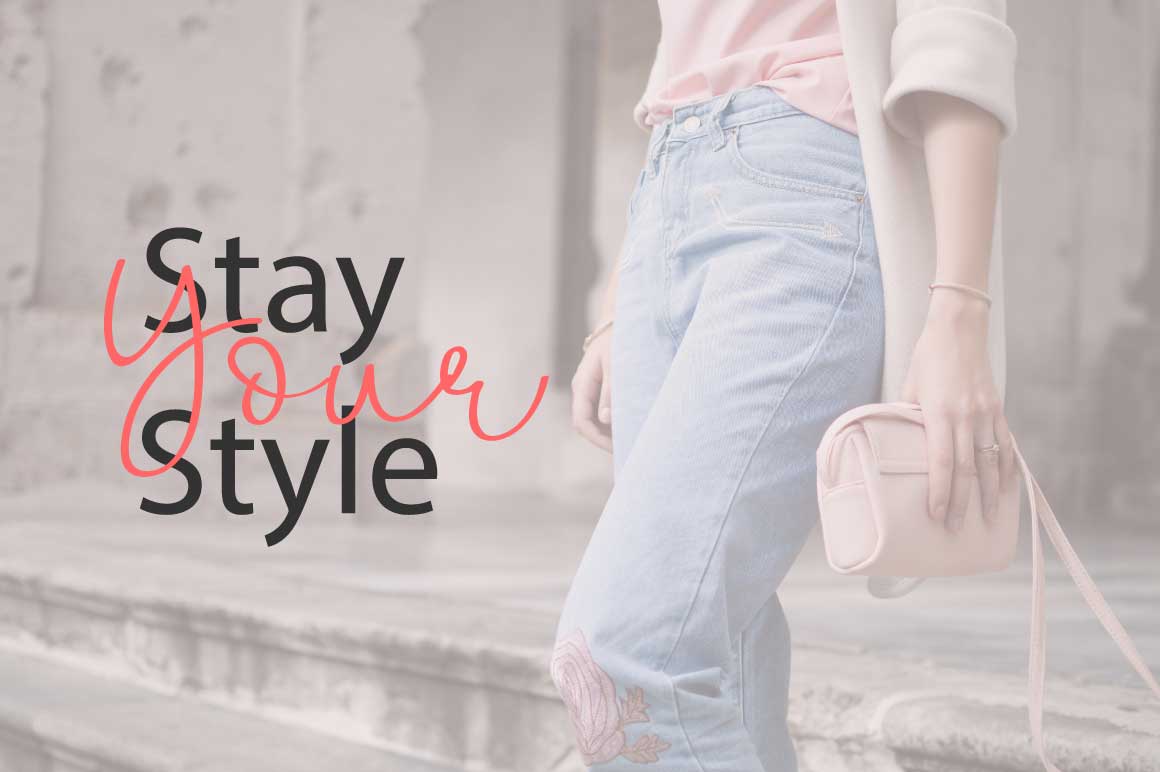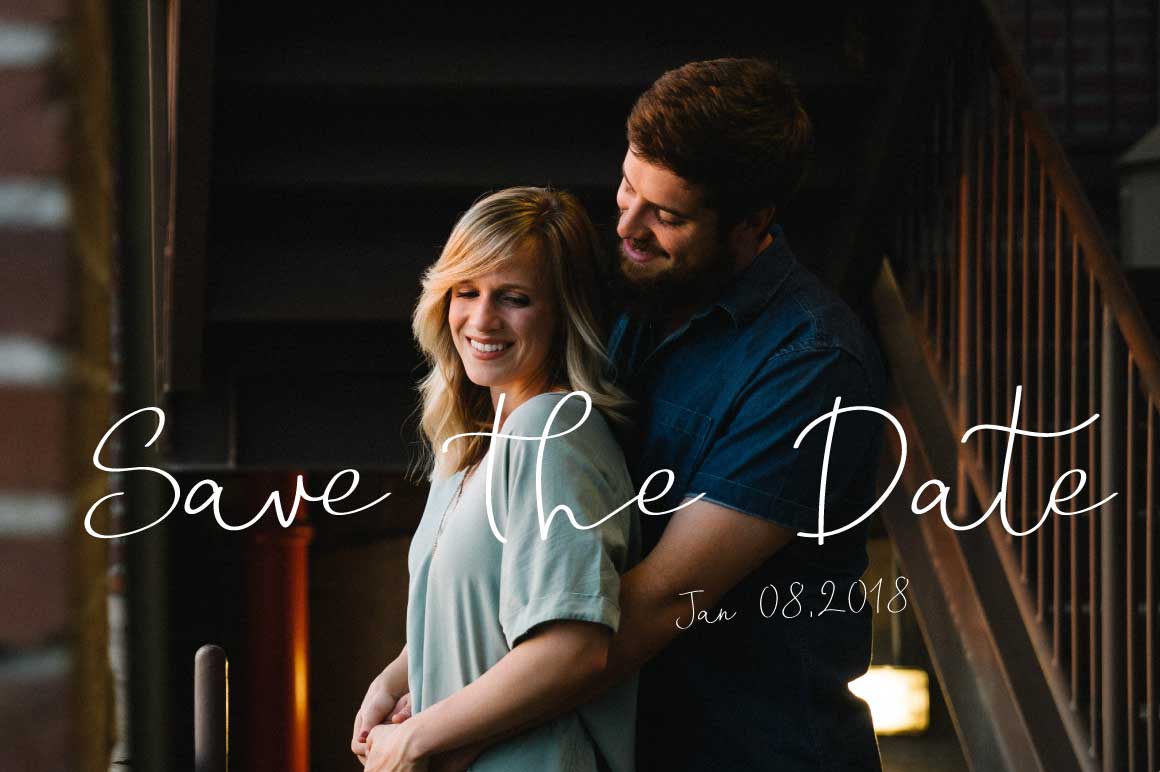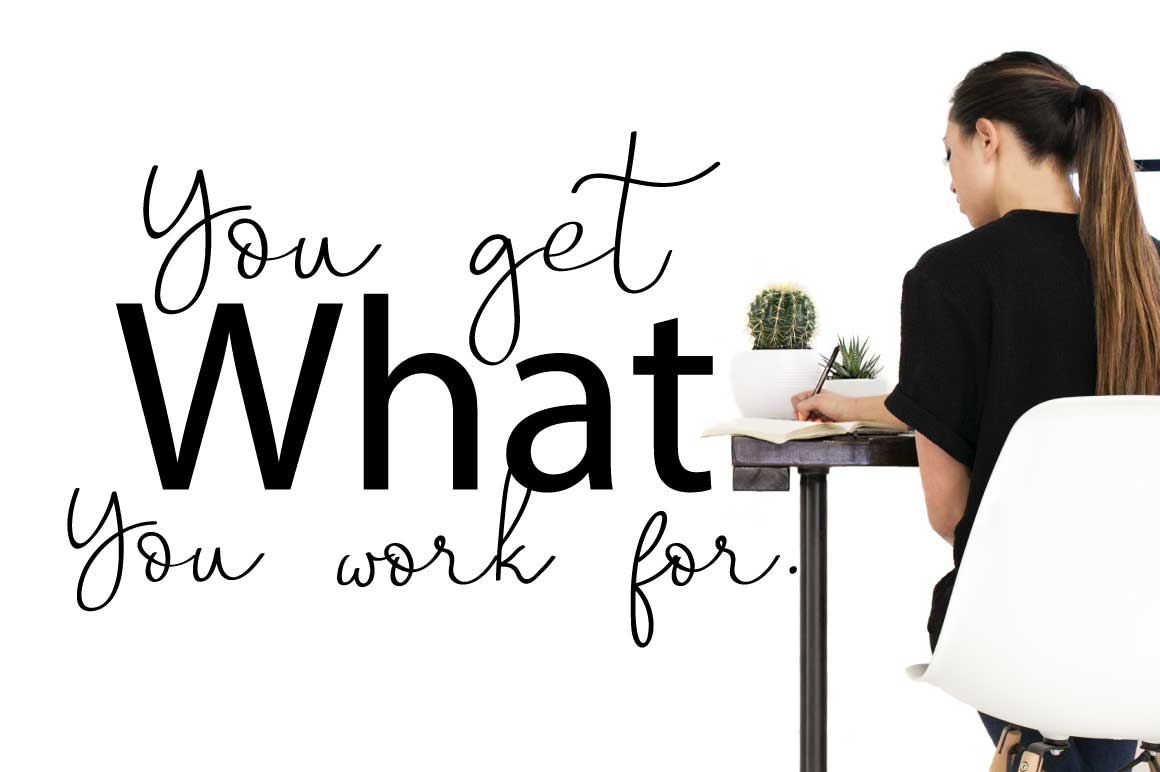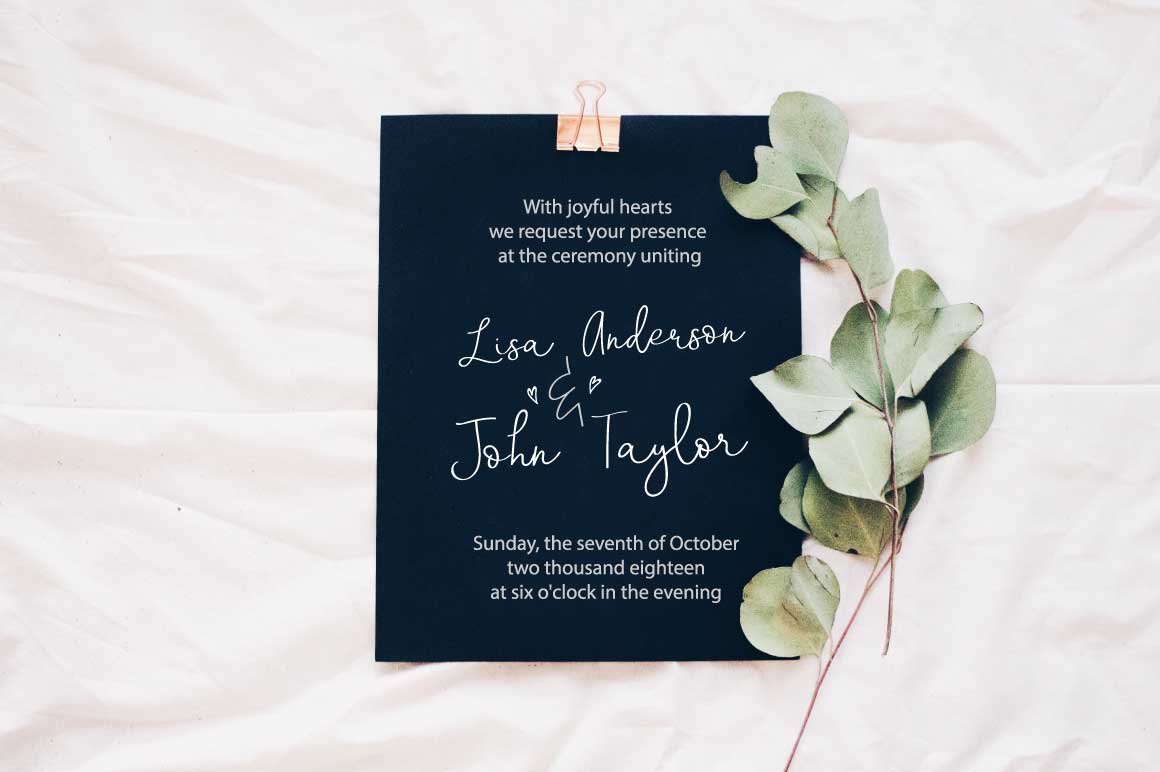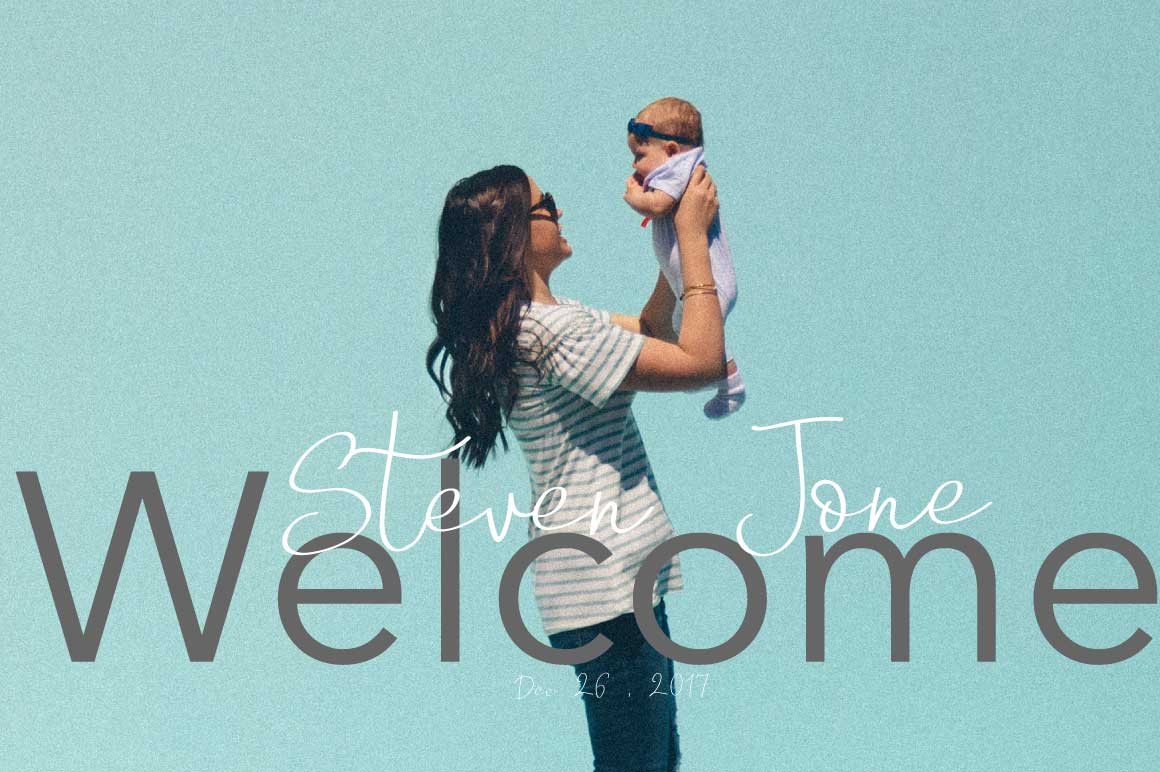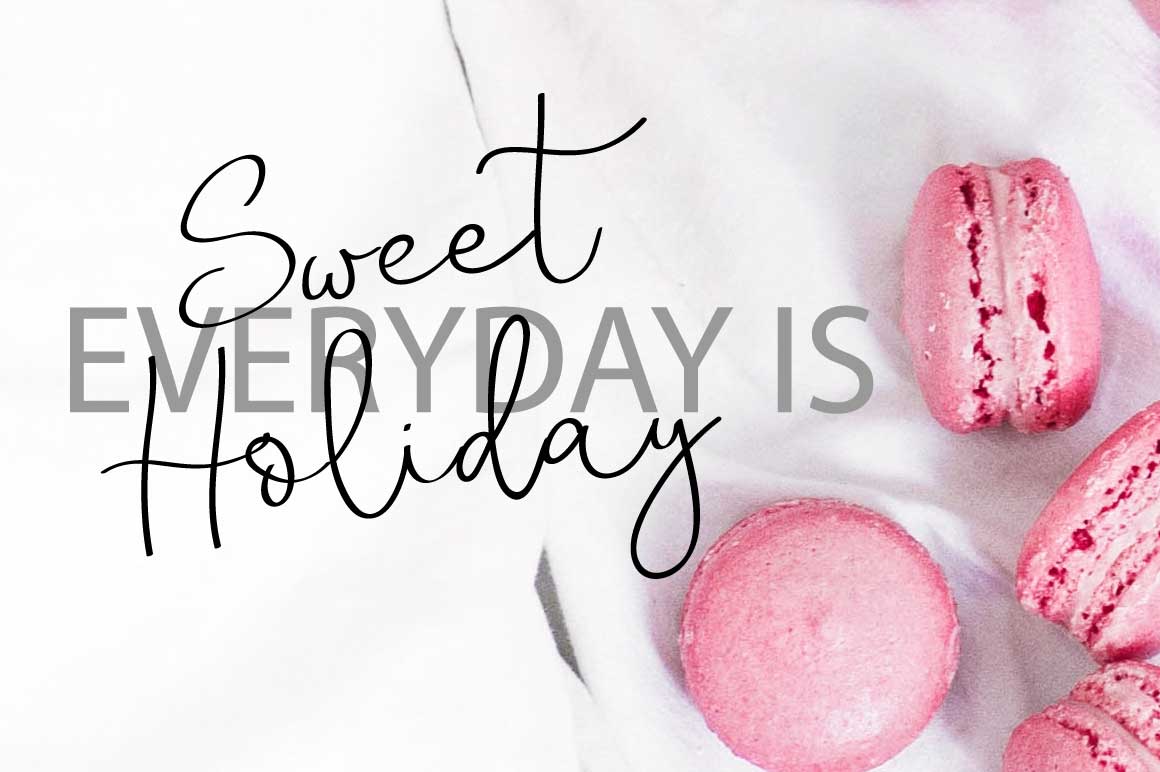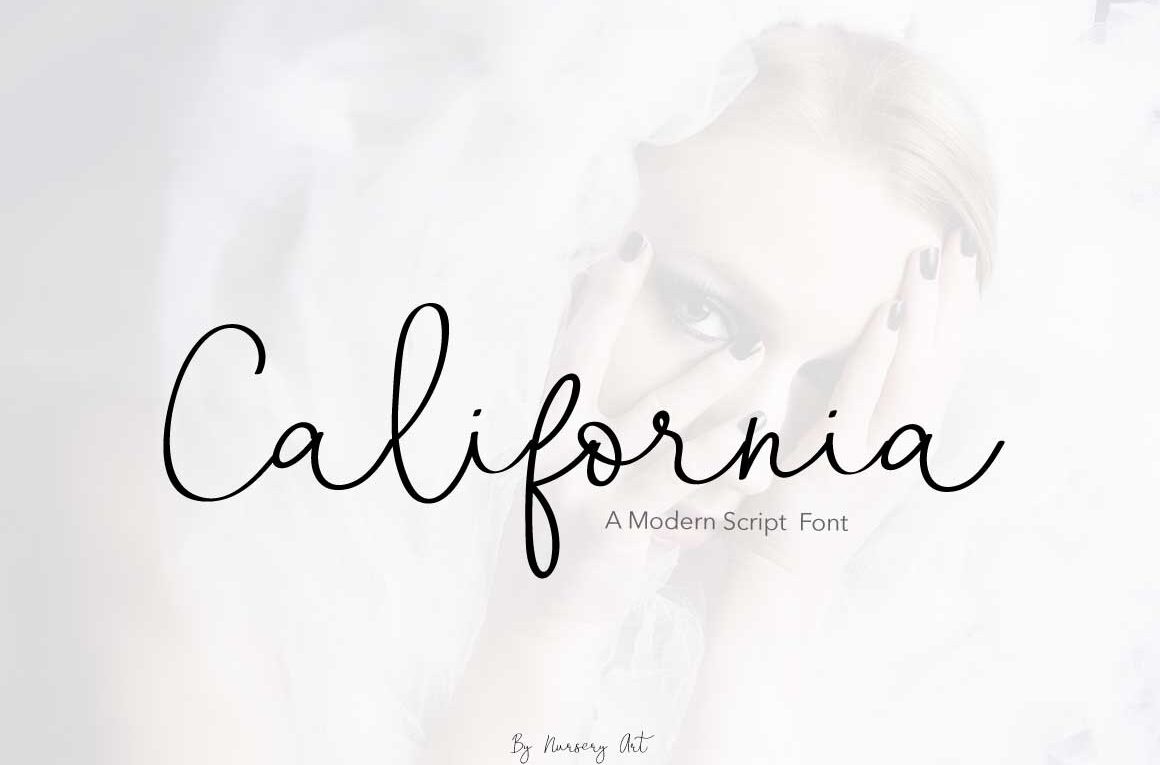
Introducing California Font: The Perfect Blend of Romance and Charm
Are you a designer or crafter looking for a font that can add a touch of romance and charm to your designs? Look no further than California Font, a beautiful and casual modern script font that’s perfect for making your projects stand out. In this article, we’ll take a closer look at California Font, its features, and how you can use it to elevate your designs.
What is California Font?
California Font is a modern script font that’s designed to bring a sense of elegance and sophistication to your designs. With its flowing lines and casual feel, this font is perfect for creating beautiful headlines, titles, and displays that will capture the attention of your audience. Whether you’re working on a branding project, a wedding invitation, or a social media graphic, California Font is the perfect choice.
Key Features of California Font
So, what makes California Font so special? Here are some of its key features:
- Beautiful and Casual Design: California Font has a unique and stylish design that’s both modern and elegant. Its casual feel makes it perfect for creating designs that are relaxed and friendly.
- Modern Script Font: This font is a true script font, with flowing lines and connected letters that give it a beautiful, handwritten feel.
- Perfect for Display and Headline Use: California Font functions most strongly as a display or headline font, making it perfect for creating eye-catching titles and headings.
- Romantic and Charming: With its elegant design and flowing lines, California Font is the perfect choice for creating designs that are romantic and charming.
How to Use California Font in Your Designs
California Font is a versatile font that can be used in a variety of design projects. Here are some ideas to get you started:
- Wedding Invitations and Stationery: California Font is perfect for creating beautiful wedding invitations, stationery, and other wedding-related designs.
- Branding and Packaging: Use California Font to create eye-catching brand names, product labels, and packaging designs that will stand out on store shelves.
- Social Media Graphics: California Font is a great choice for creating social media graphics, such as Facebook posts, Instagram stories, and Twitter headers.
- Signage and Posters: Use California Font to create eye-catching signs and posters that will grab the attention of your audience.
Tips for Getting the Most Out of California Font
Here are some tips for getting the most out of California Font:
- Use it as a Display Font: California Font is designed to be used as a display font, so use it to create eye-catching headlines and titles.
- Experiment with Font Sizes: California Font looks great at a variety of font sizes, so experiment with different sizes to find the one that works best for your design.
- Pair it with Other Fonts: California Font pairs well with other fonts, such as sans-serif fonts and serif fonts. Experiment with different font combinations to find the one that works best for your design.
California Font is a beautiful and casual modern script font that’s perfect for adding a touch of romance and charm to your designs. With its flowing lines and elegant design, this font is perfect for creating eye-catching headlines, titles, and displays. Whether you’re a designer or crafter, California Font is a great choice for any project. So why not give it a try and see how it can elevate your designs?